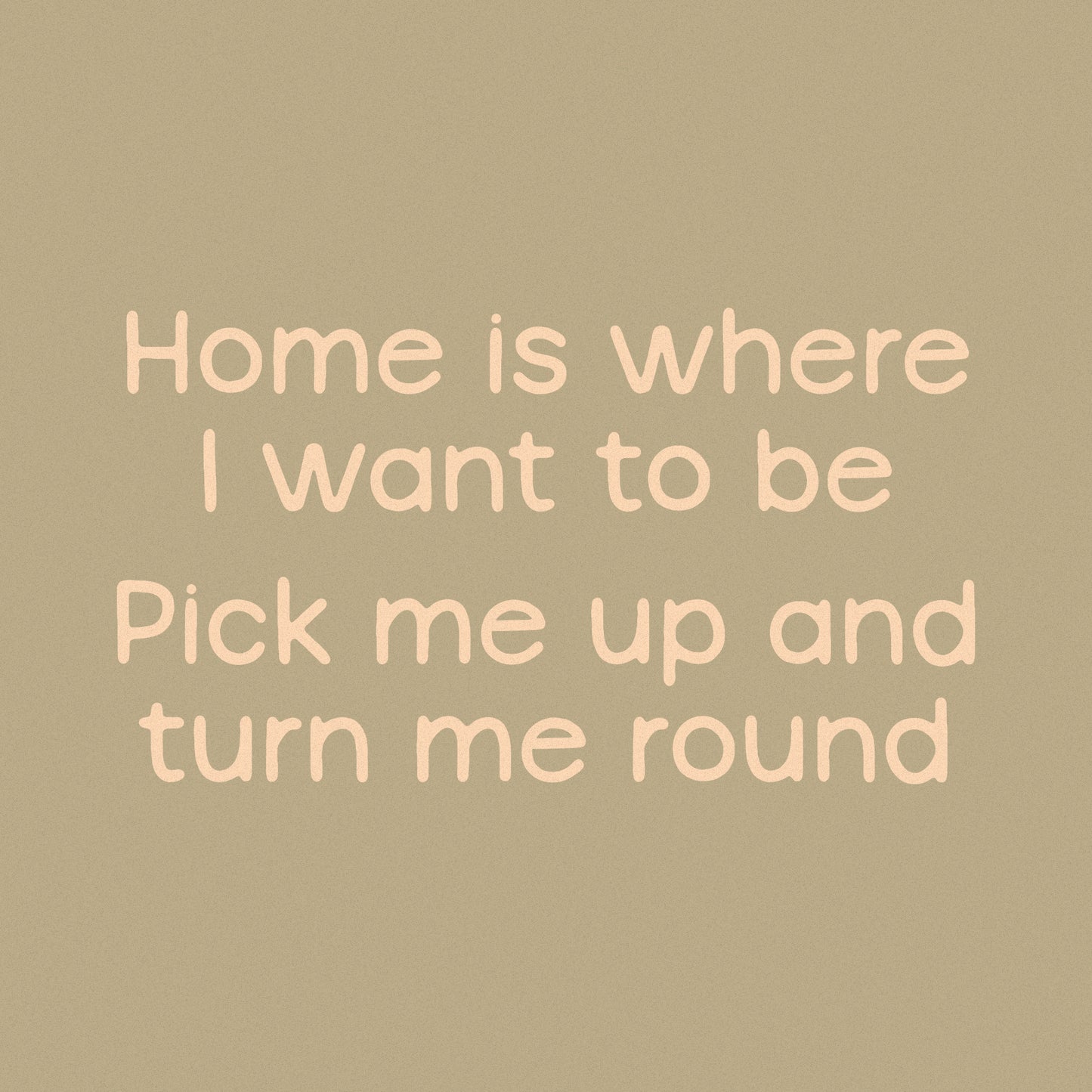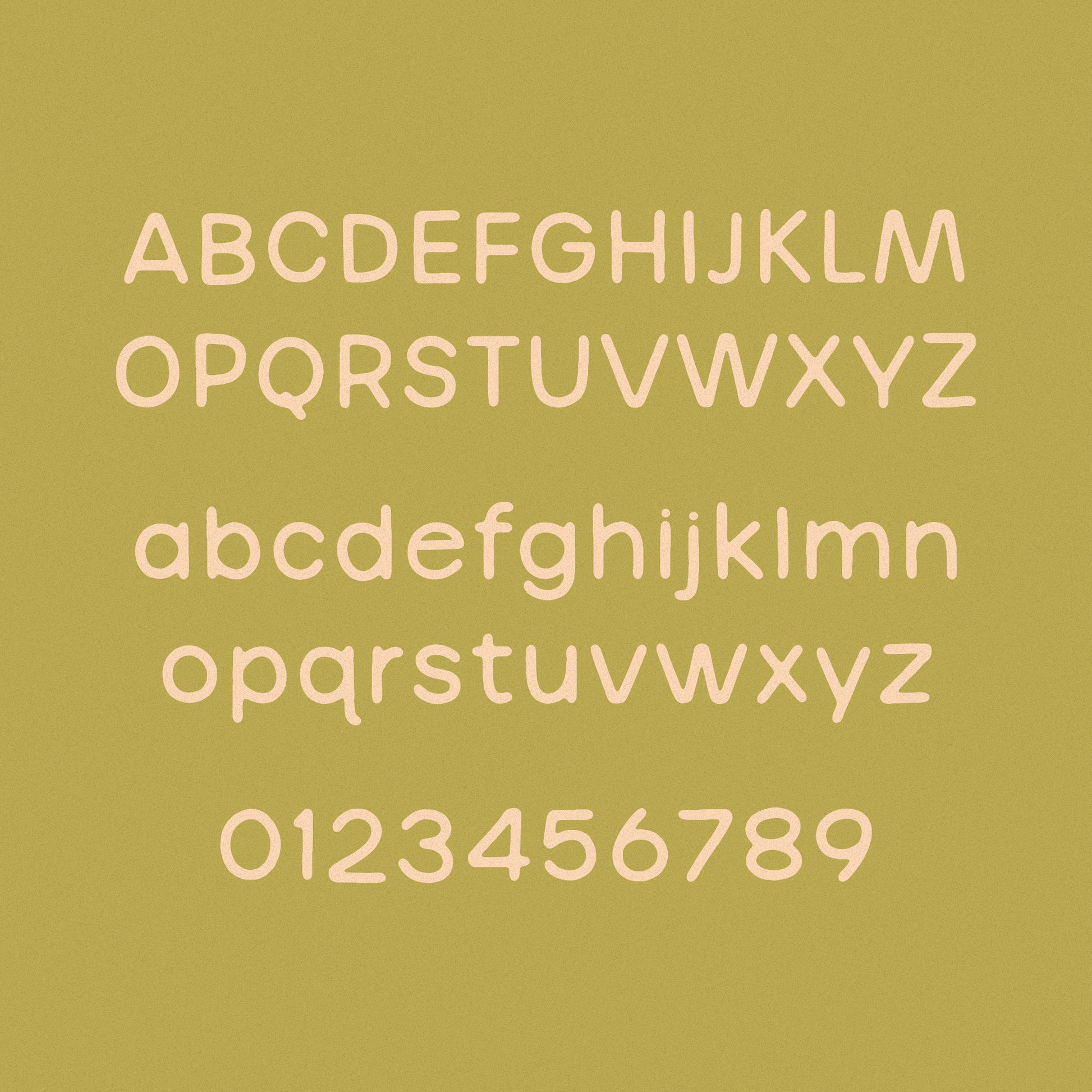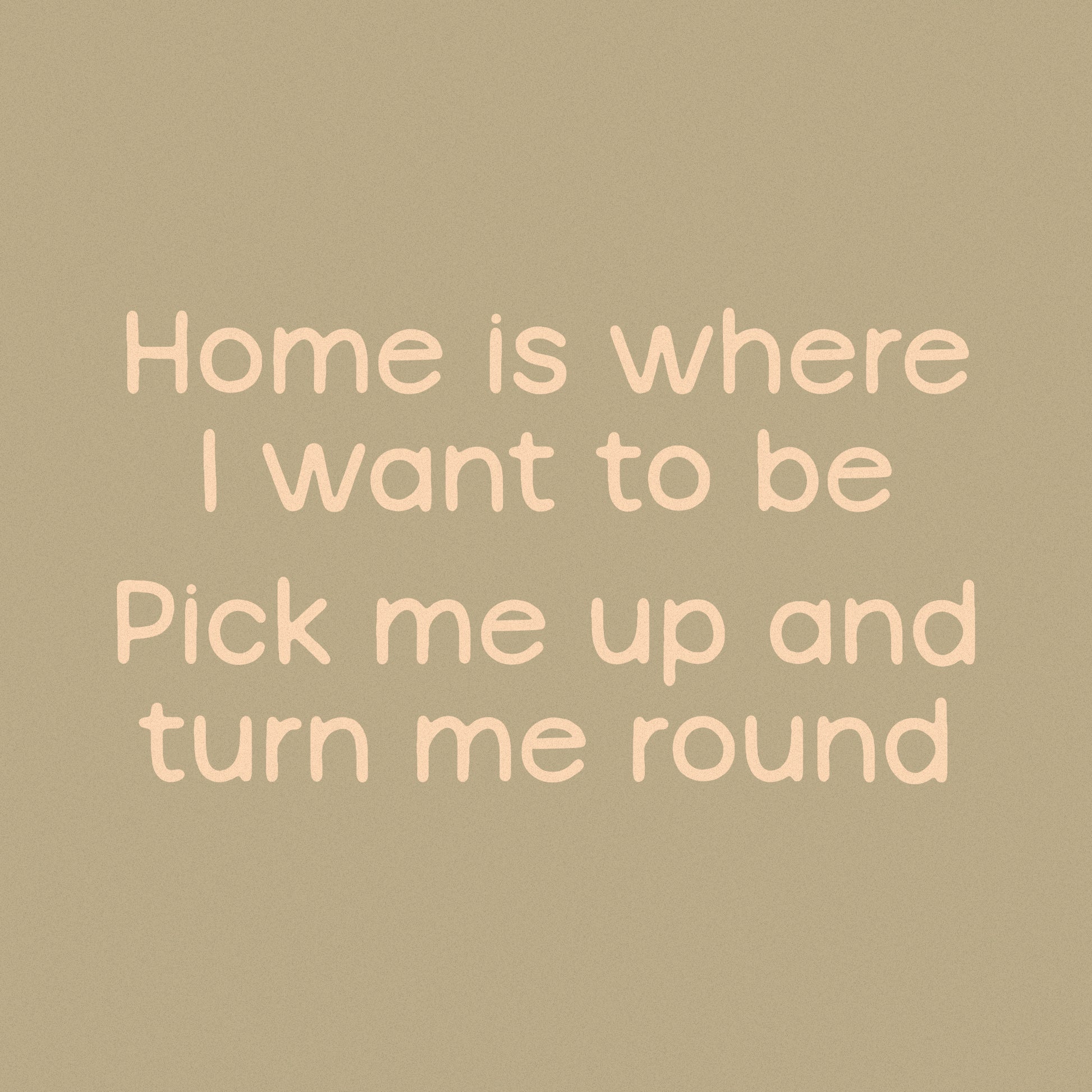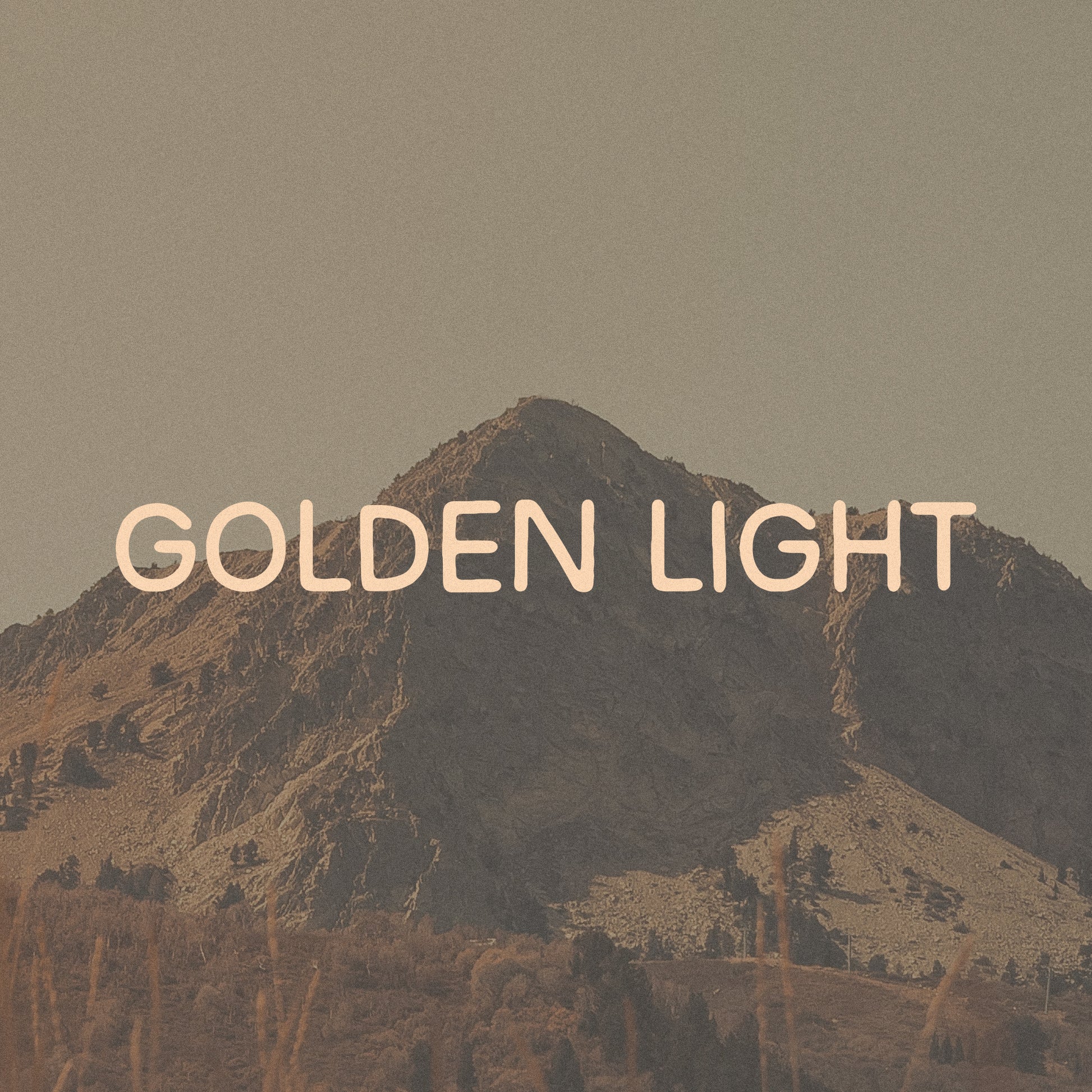
Golden Light Font
Golden Hour is a hand drawn sans serif font, available with both upper and lower case characters. It started as an all caps font and the exploration continued into lower case. It is inspired by the timeless signage typography found on old farm and warehouse machinery.